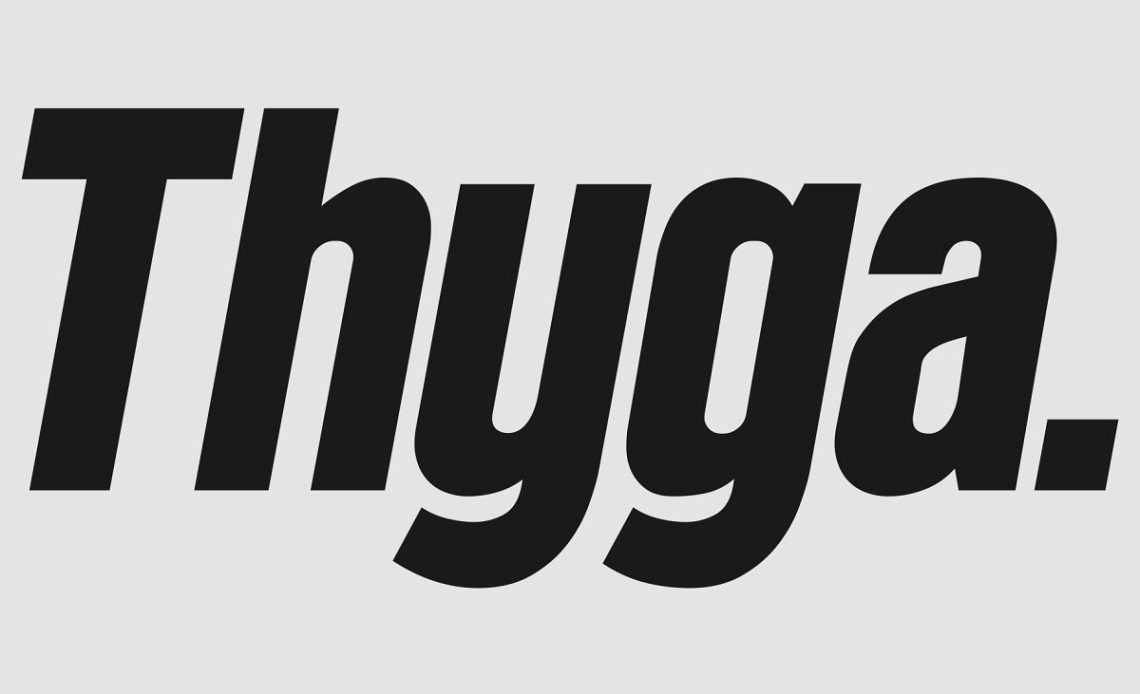
Introducing Thyga, the newest modern sans serif font family that will take your designs to the next level! Created by the talented Wisnu Cipto Wibowo, Thyga has a strong and elegant character that will elevate your designs and give them a premium and professional touch.
Thyga is the best font for coloring book designs, thanks to its versatile and eye-catching features. It comes with the support of three styles in one family and is supported by a whopping 92 languages, making it the perfect font for designers around the world.
But that's not all - Thyga also offers an Italic font and dingbats Icon font, giving you even more creative freedom and endless possibilities for your designs. And with its premium quality and professional feel, Thyga is perfect for designers who want to create their best work and tackle their biggest projects.